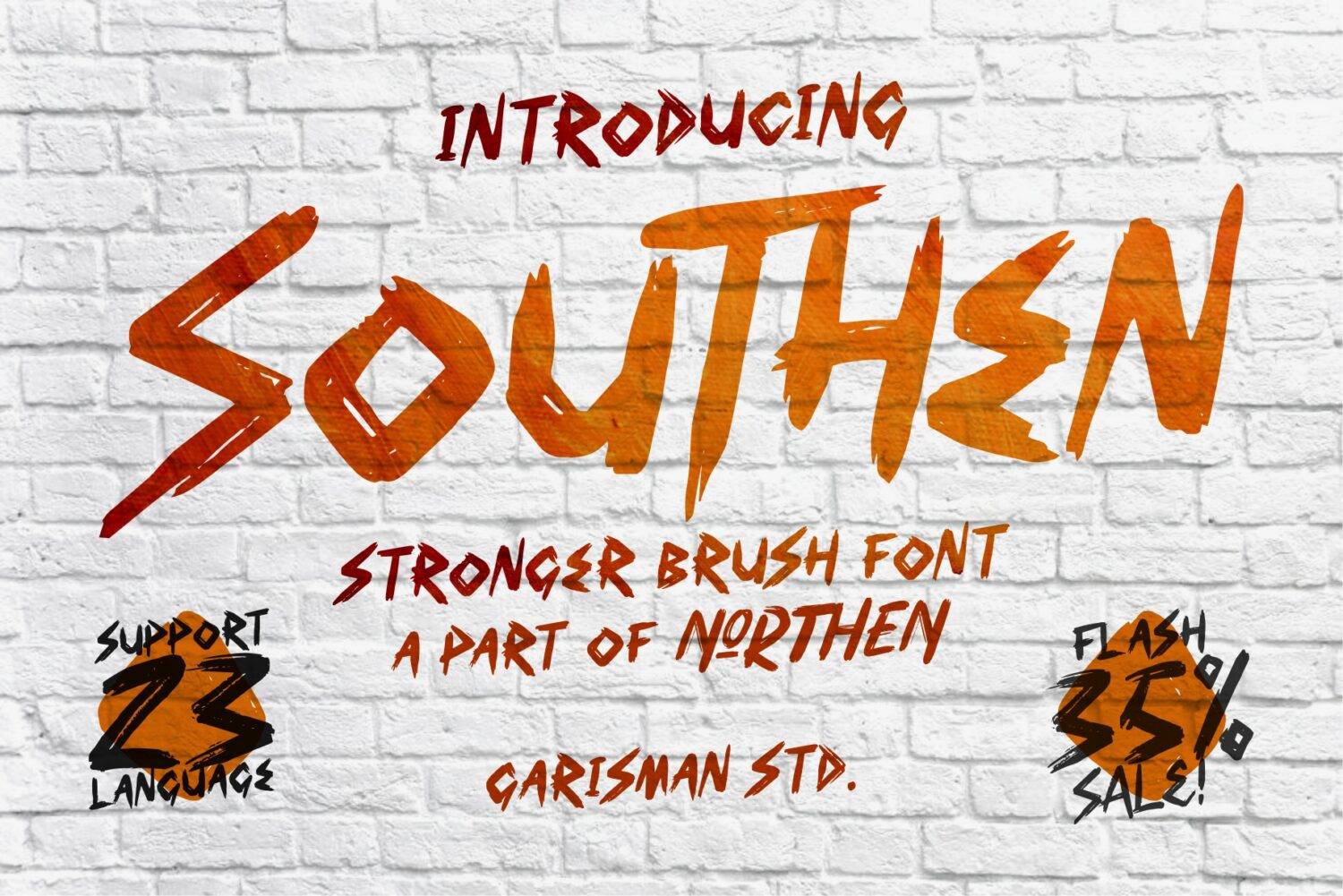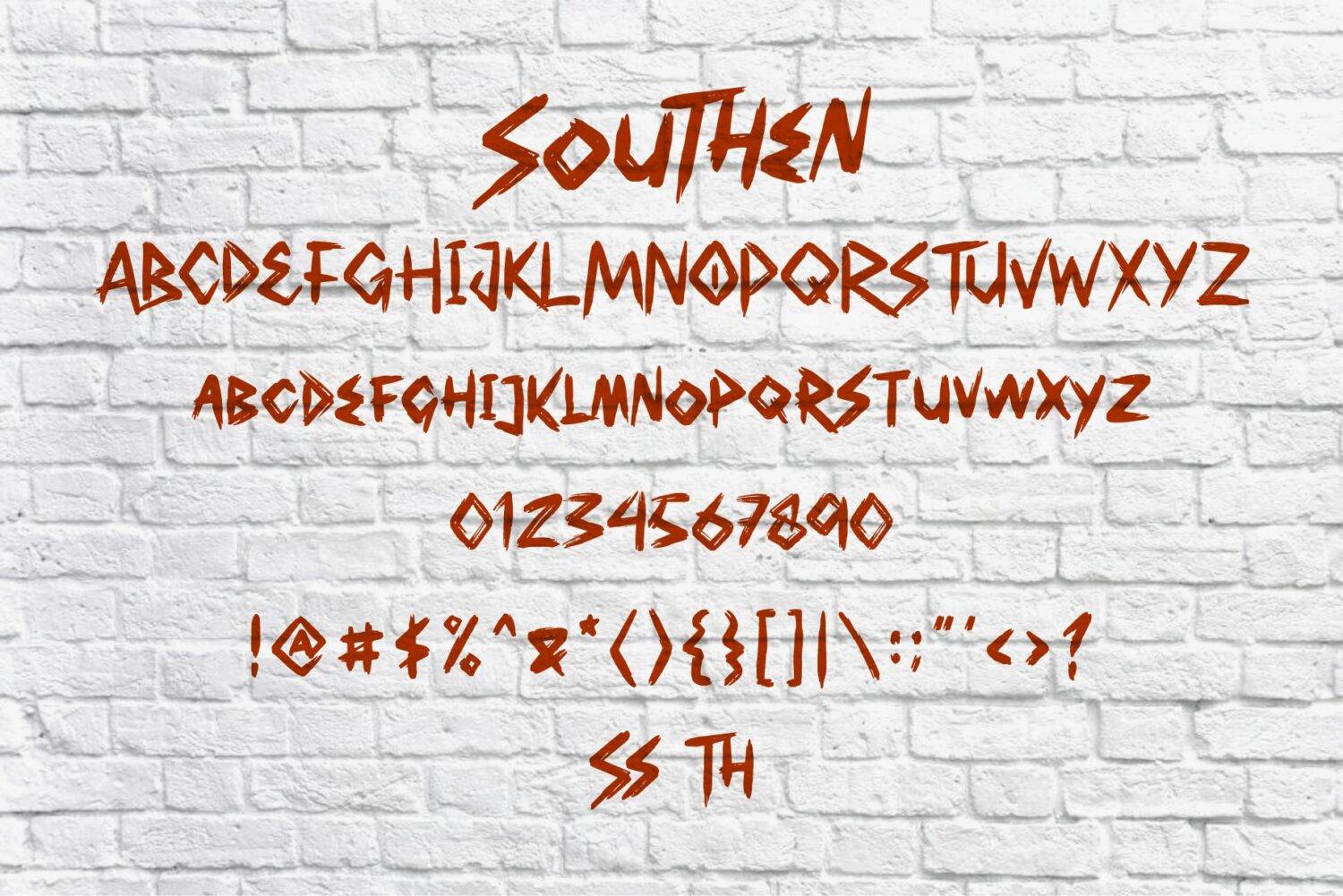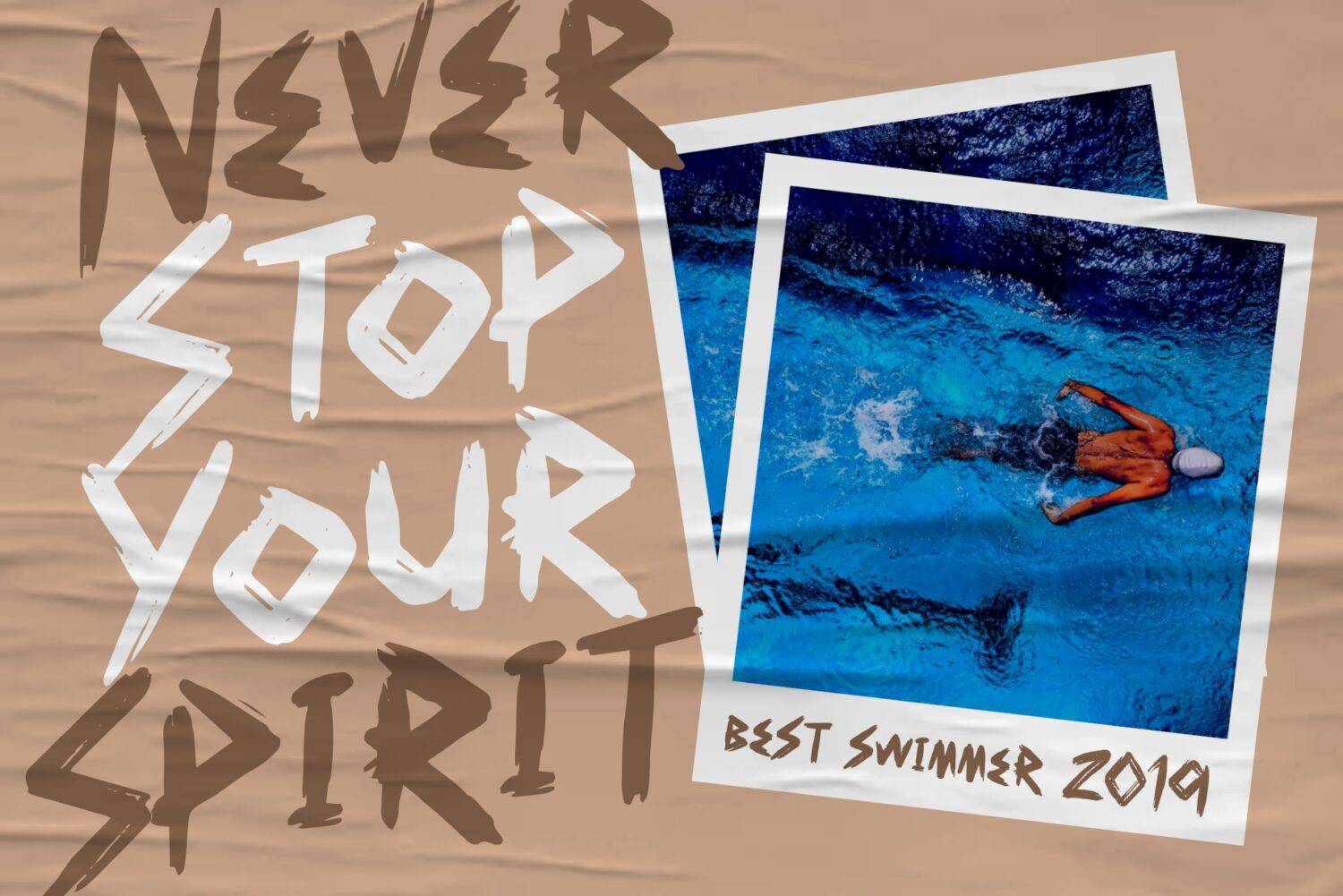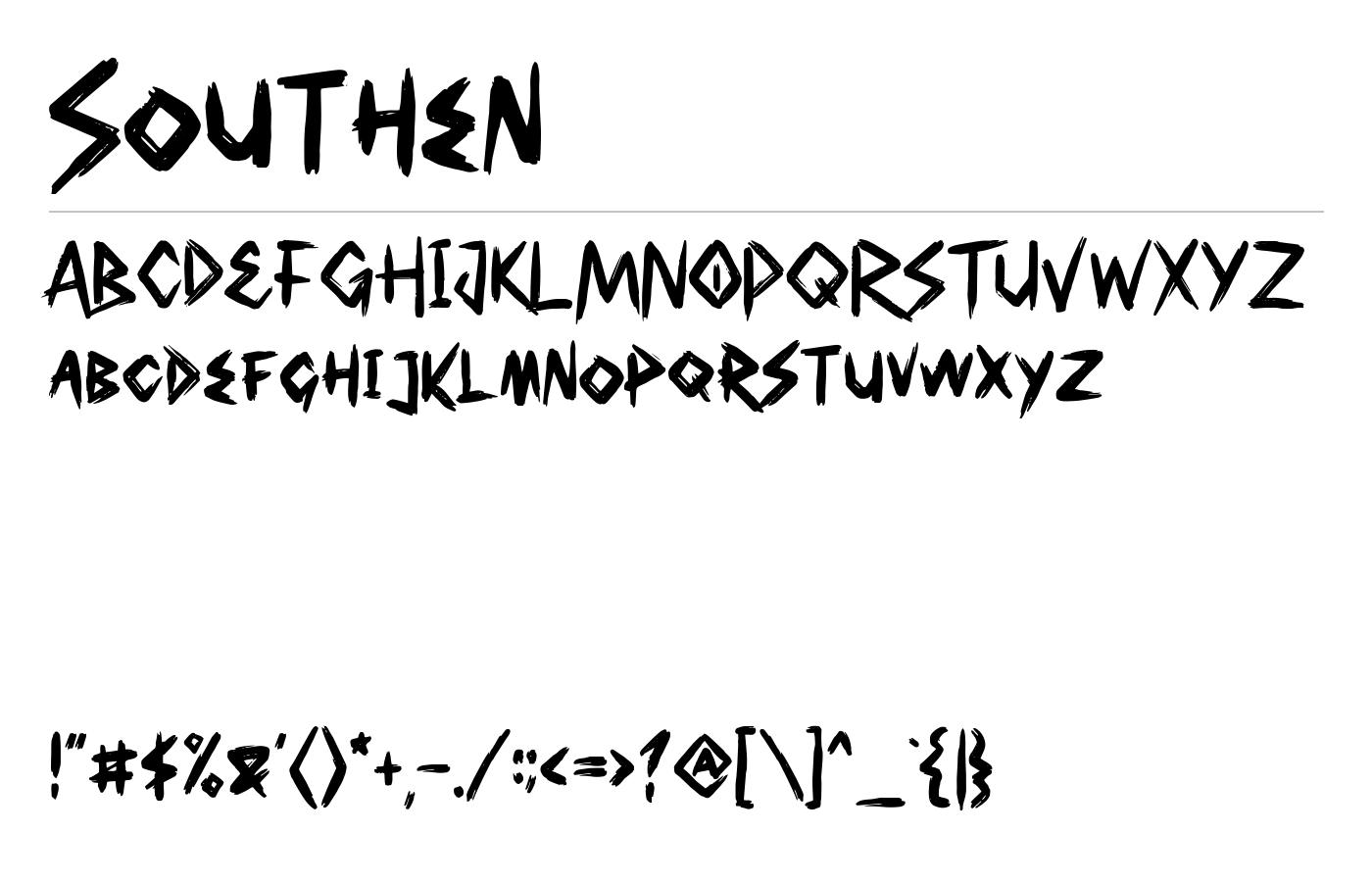
Southen is a bold, hand-drawn sans serif font with a rough, edgy texture that gives it a raw, energetic feel. Its uneven strokes and jagged shapes make it perfect for creative projects seeking a rebellious, urban, or graffiti-inspired style, ideal for eye-catching headlines, posters, and branding that wants to stand out with a unique, informal personality.
Southen Font
About Southen Font
| Font family | Southen Font |